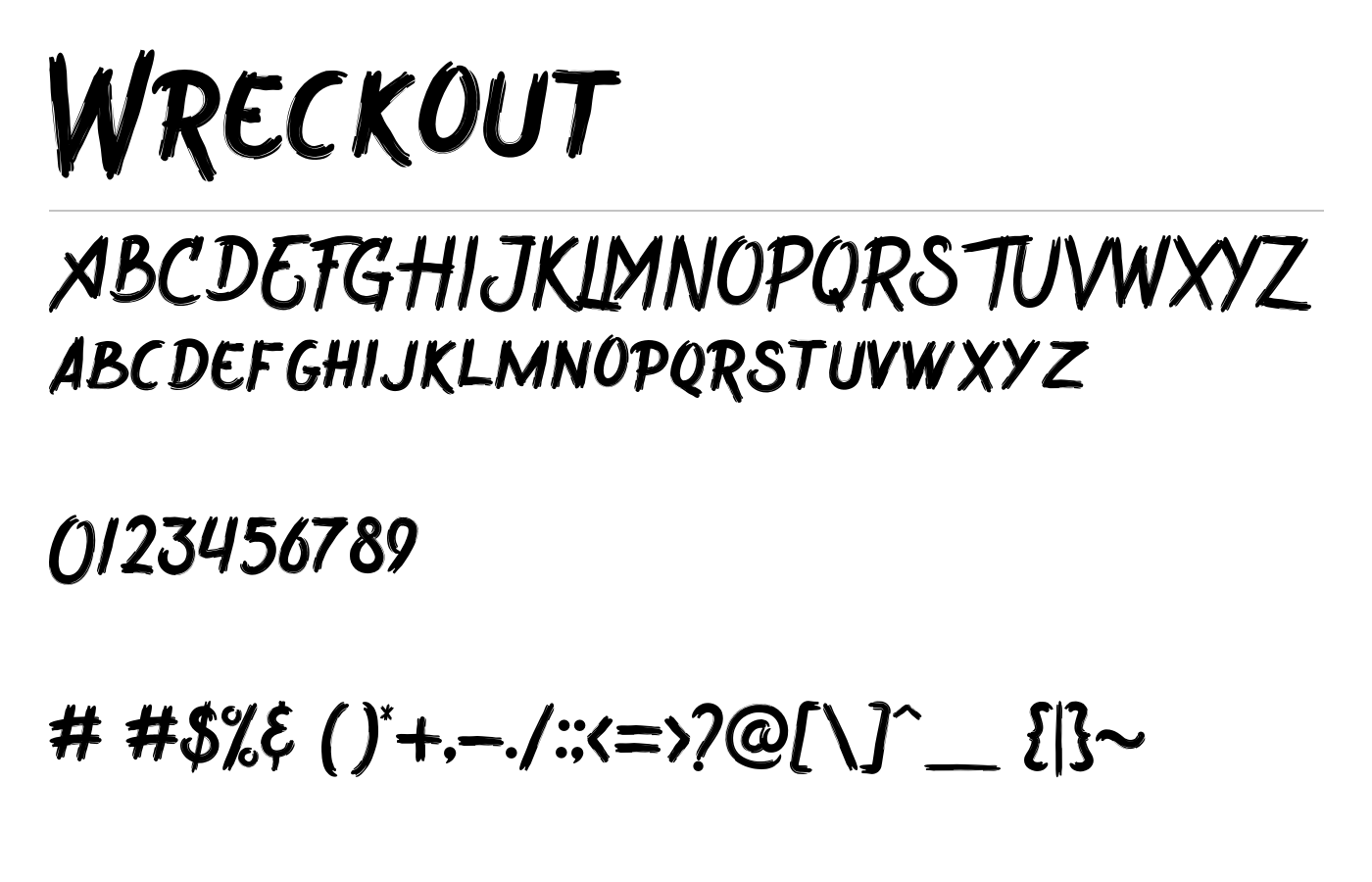
Wreckout is a bold, hand-drawn sans serif font with a rough, brushstroke texture that gives it a dynamic and energetic feel. Its uppercase and lowercase styles maintain a casual yet intense personality, making it perfect for designs that want to convey creativity, urgency, or a rebellious spirit. This font works well in posters, logos, and headlines where a strong, expressive statement is needed.
Wreckout Font
About Wreckout Font
| Font family | Wreckout Font |
| Designer | Stringlabs |